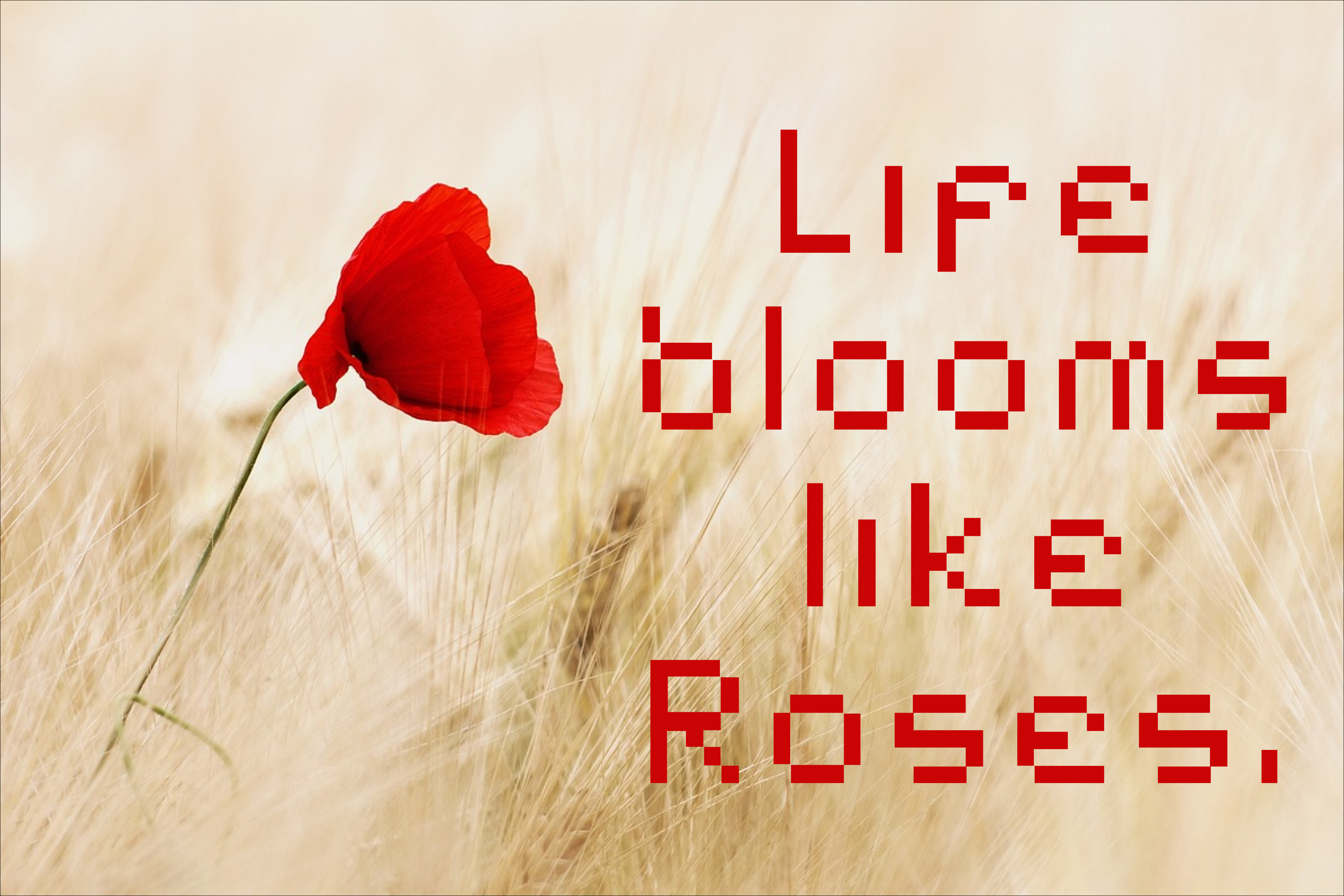
Starmap Truetype Font
The Starmap Truetype Font is a unique and visually appealing typeface designed to emulate the look and feel of celestial maps. This font is ideal for creative projects that seek to incorporate a sense of astronomy, astrology, or cosmic wonder into their designs.
Design and Aesthetics
Celestial Inspiration The Starmap Truetype Font draws its inspiration from historical star charts and modern astronomical maps. Each character in the font is crafted to resemble constellations, star patterns, and celestial bodies, giving your text an ethereal and otherworldly appearance.
Versatility in Usage This font is perfect for a wide range of applications, including but not limited to, book covers, posters, invitations, and digital media. Its unique style adds a touch of sophistication and mystique to any project, making it a favorite among designers looking to create a memorable visual experience.
Character Set The Starmap Truetype Font includes a comprehensive set of characters, ensuring that it meets the needs of diverse linguistic requirements. It features uppercase and lowercase letters, numerals, punctuation, and special characters, all designed with the same celestial theme.
Conclusion The Starmap Truetype Font is an exceptional choice for designers seeking to infuse their work with a celestial theme. Its aesthetic appeal, versatility, and technical reliability make it a valuable addition to any font collection. Whether for professional design projects or personal creative endeavors, the Starmap font is sure to captivate and inspire.